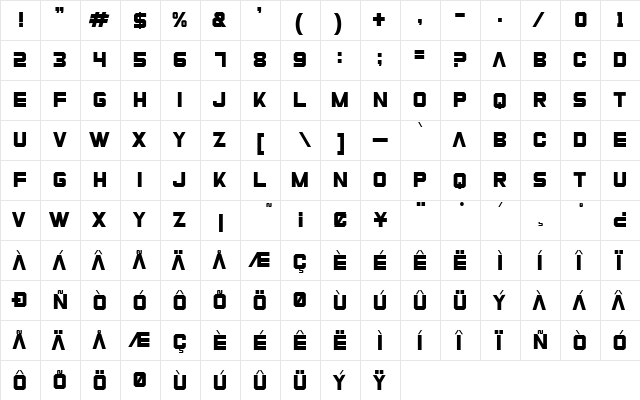
Zero Athletics Regular
Design Context for Zero Athletics Typeface
Zero Athletics brings high-energy athletic personality to the page — its confident, muscular forms are built for impact.
Built for sports team identities, athletic apparel, event posters, and high-energy promotional material.
Pro Tip: Zero Athletics thrives on contrast — try it large, bold, and tight against a clean background for maximum visual impact.